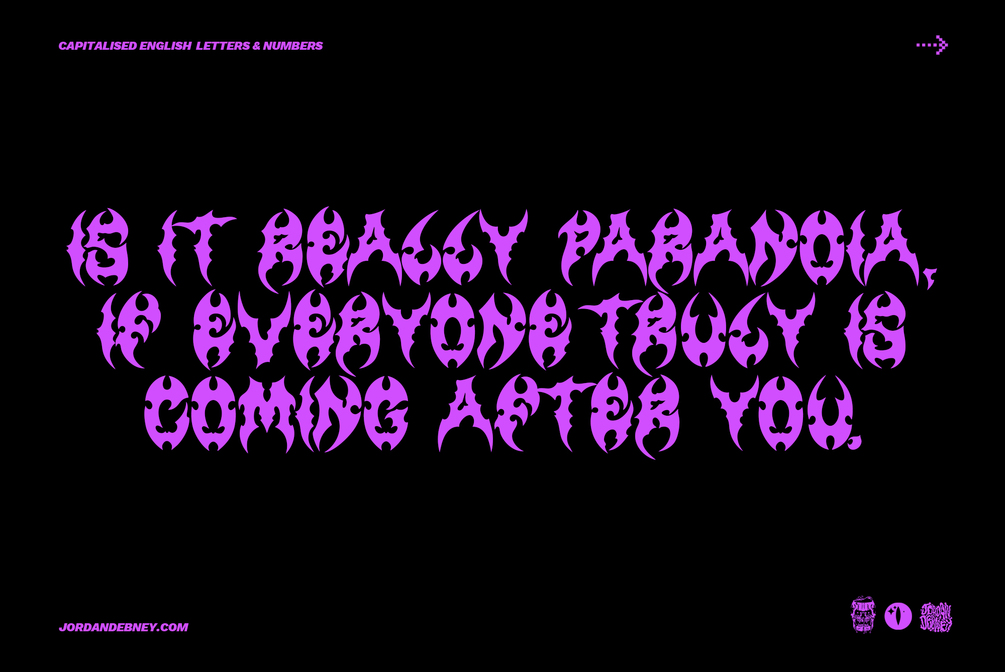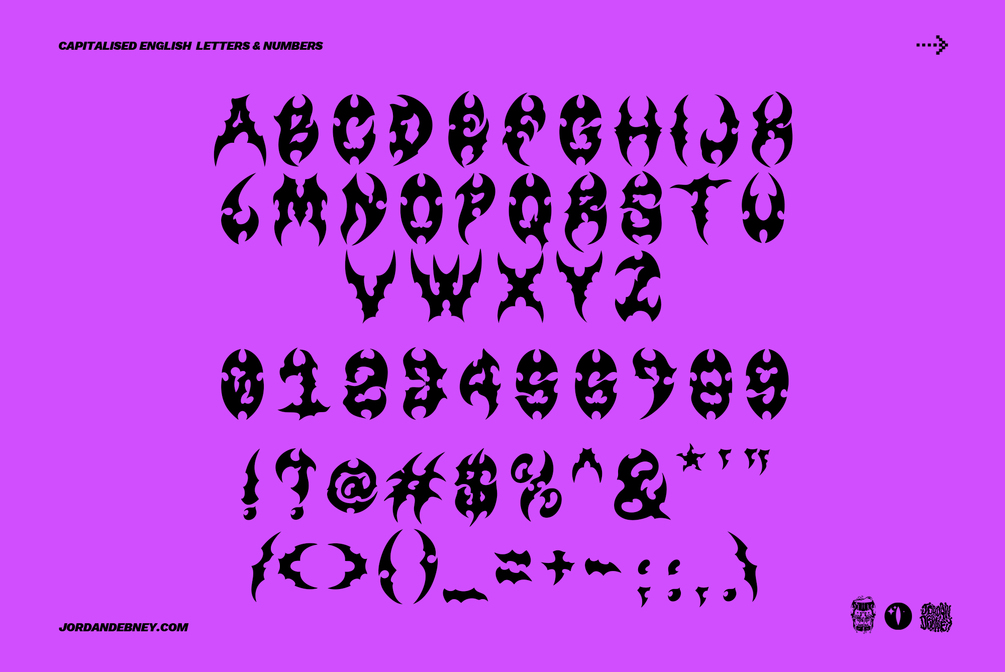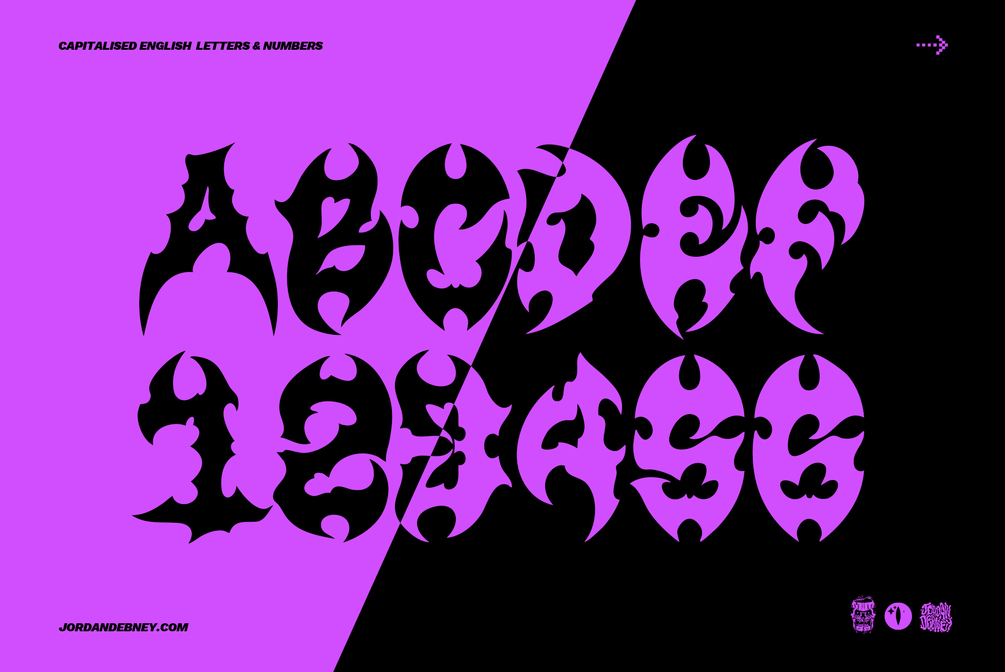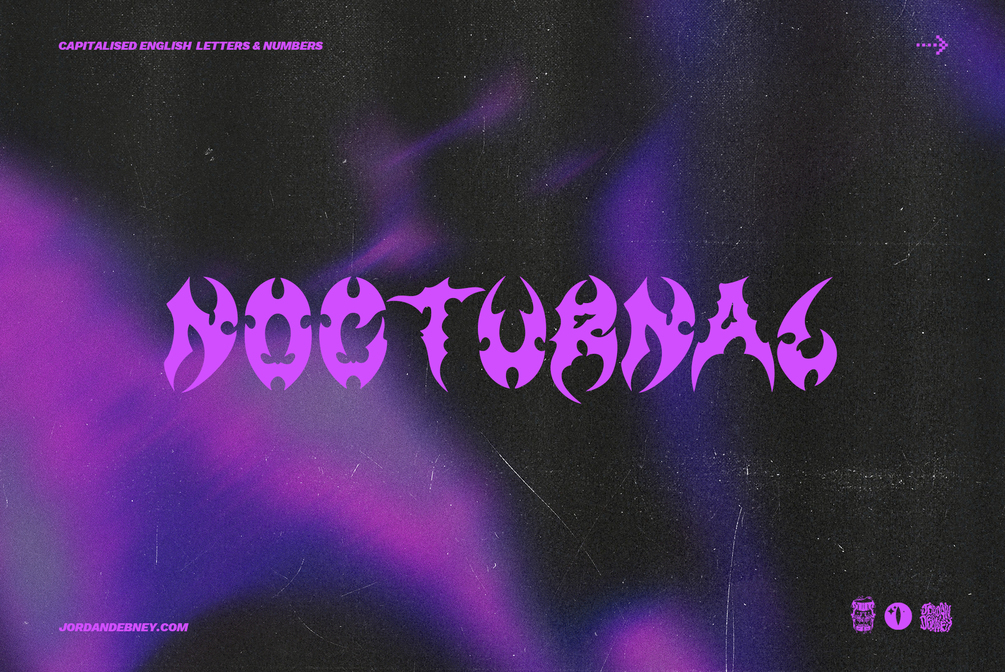
NOCTURNAL TYPEFACE
THERE’S SOMEONE IN THAT ROOM, OR IS IT ALL IN YOUR HEAD? JUST BECAUSE YOU’RE PARANOID, DOESN’T MEAN THEY DON’T WANT YOU DEAD. THE SLEEPLESS NIGHTS ADD TO THE OVERWHELMING SENSATION, KEEP CLENCHING YOUR KNIFE JUST MAYBE IT’S NOT YOUR IMAGINATION. A CURSE WILL FALL UPON ANYONE WHO USES THIS TYPEFACE IN DAYLIGHT HOURS.
◆ HAND-DRAWN GLYPHS.
◆ CAPITALISED ENGLISH LETTERS AND NUMBERS.